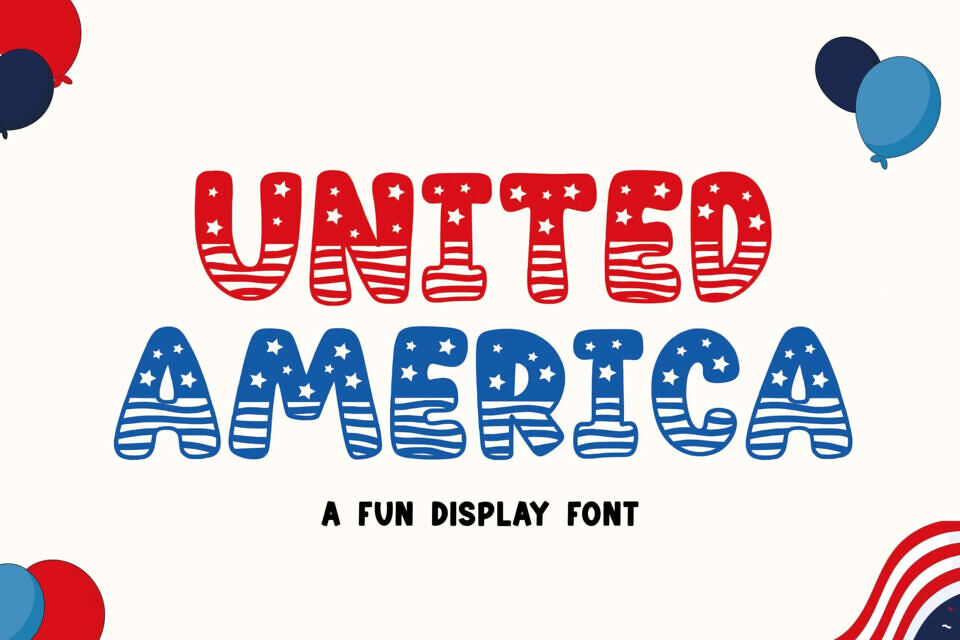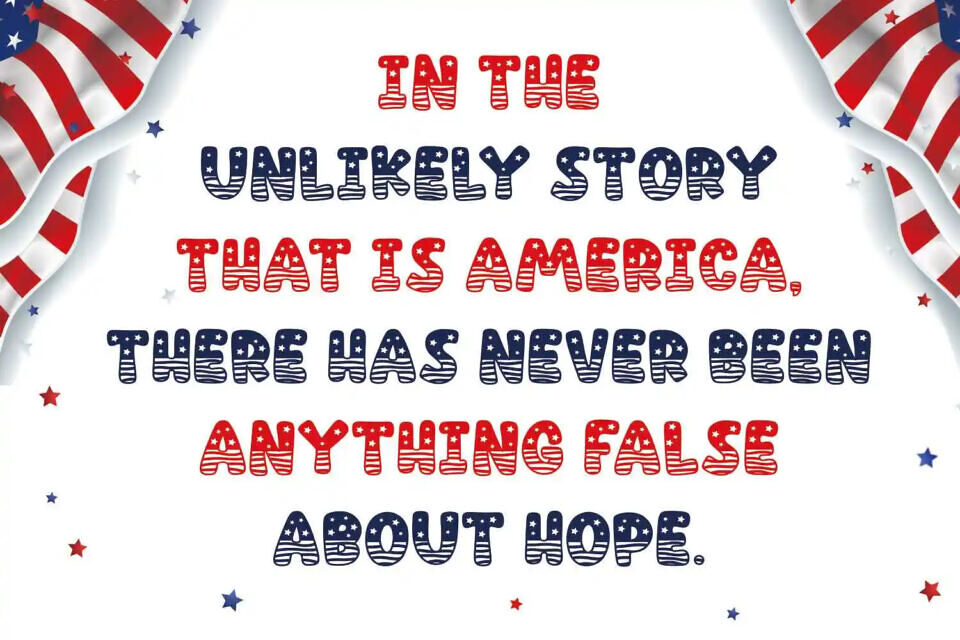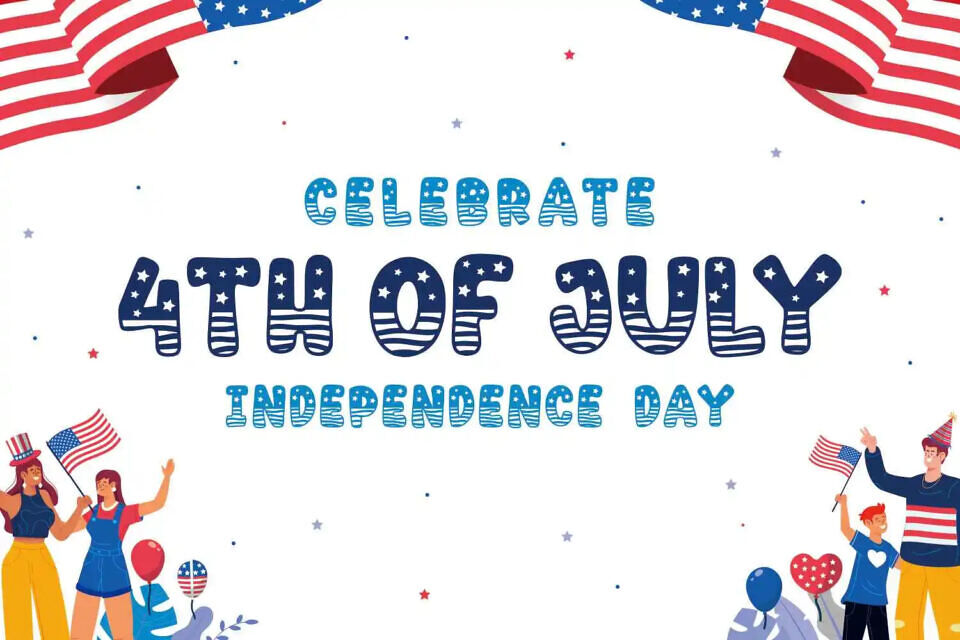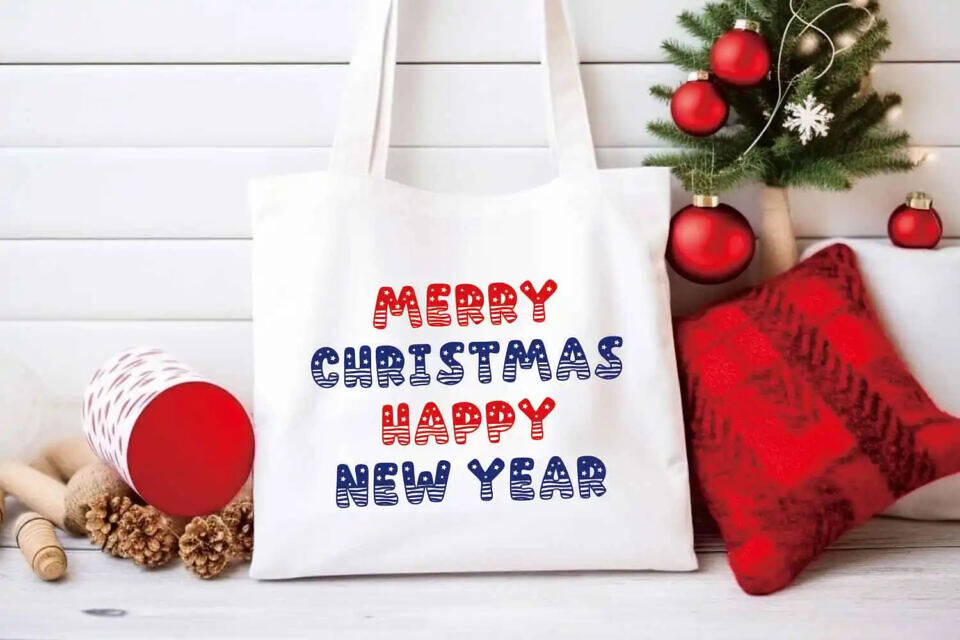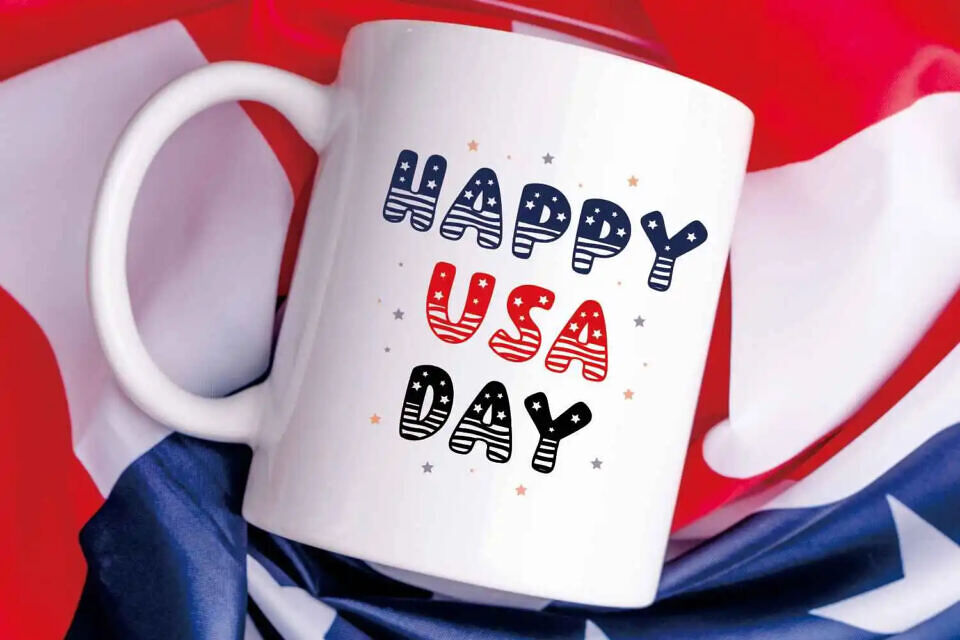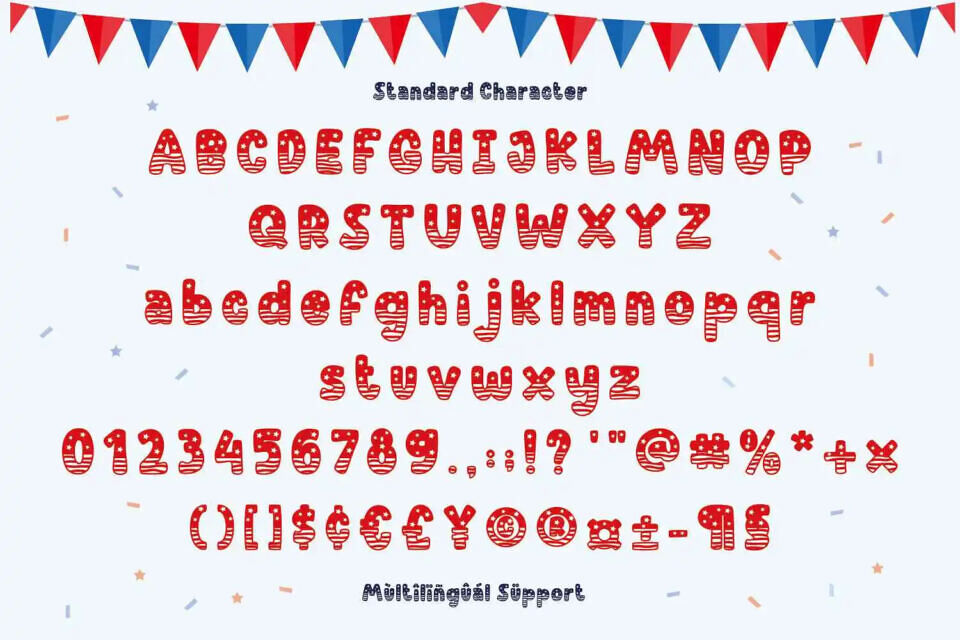
Introducing UNITED AMERICA, the perfect font to infuse your celebrations with a touch of charm and patriotism! Designed with a display style, UNITED AMERICA exudes a delightful blend of cuteness, fun, and quirky elegance, making it ideal for commemorating USA Independence Day, Military Day, Veteran’s Day, crafting projects, greeting cards, decorations, craft lettering, embroidery, and more.
Add a splash of creativity to your festivities with UNITED AMERICA font and let your imagination soar! Join us in honoring the spirit of unity and freedom with every stroke of this whimsical typeface.